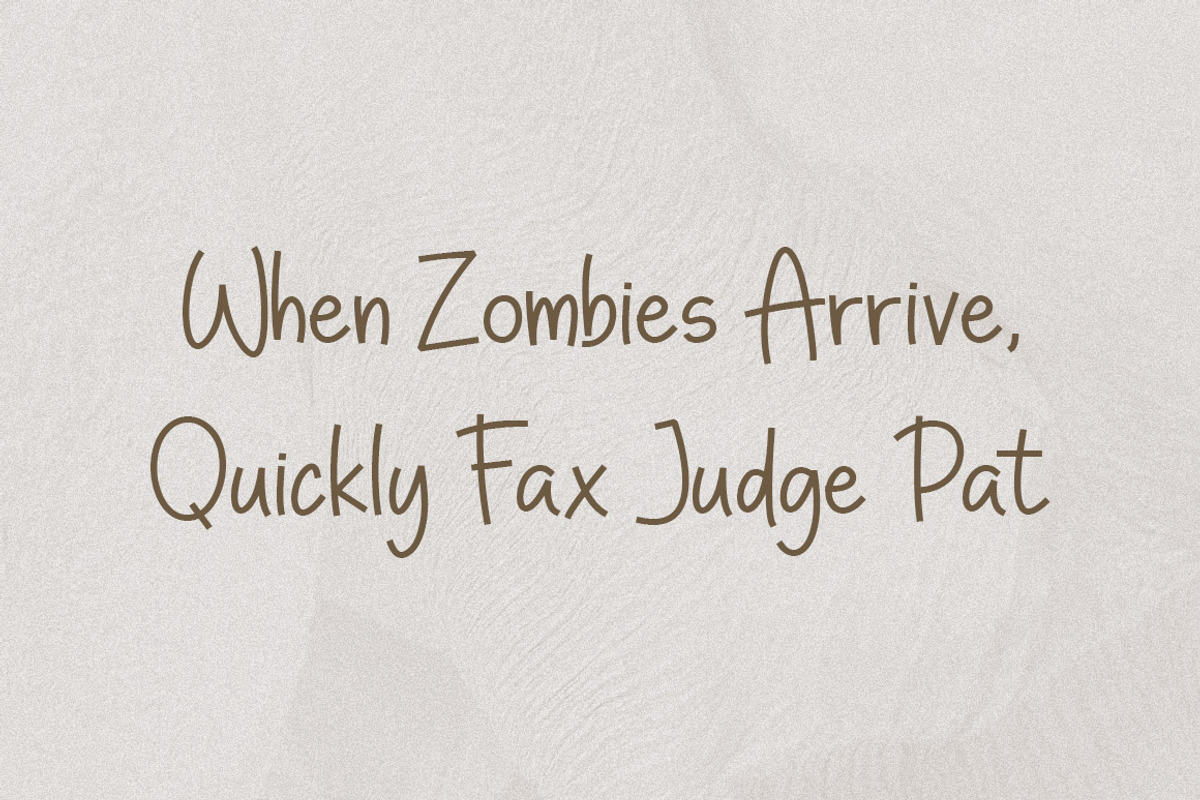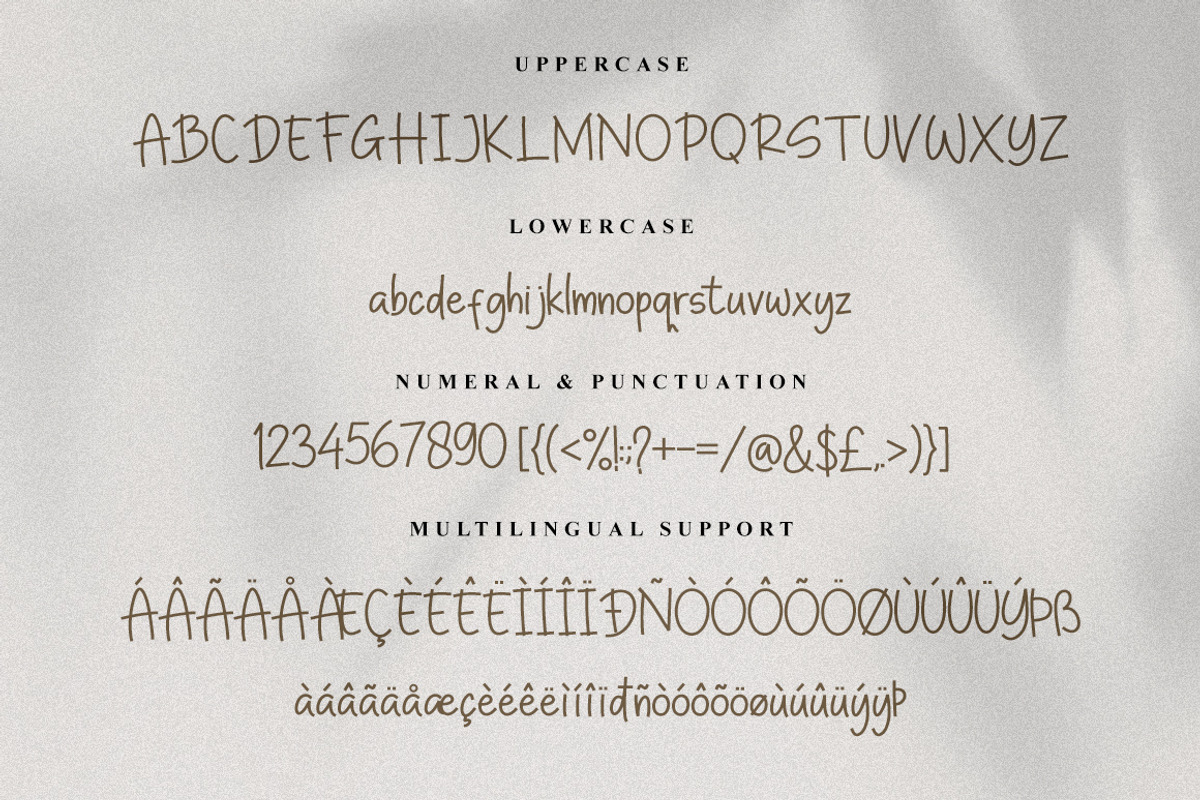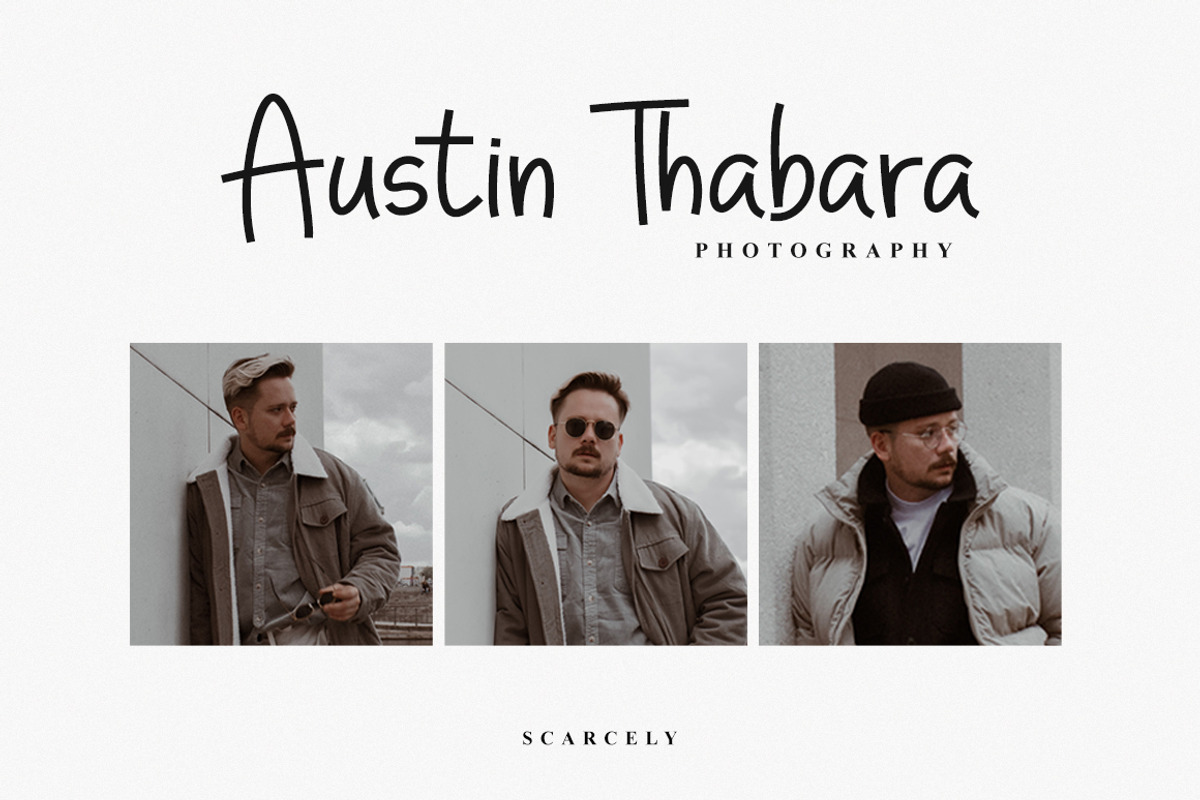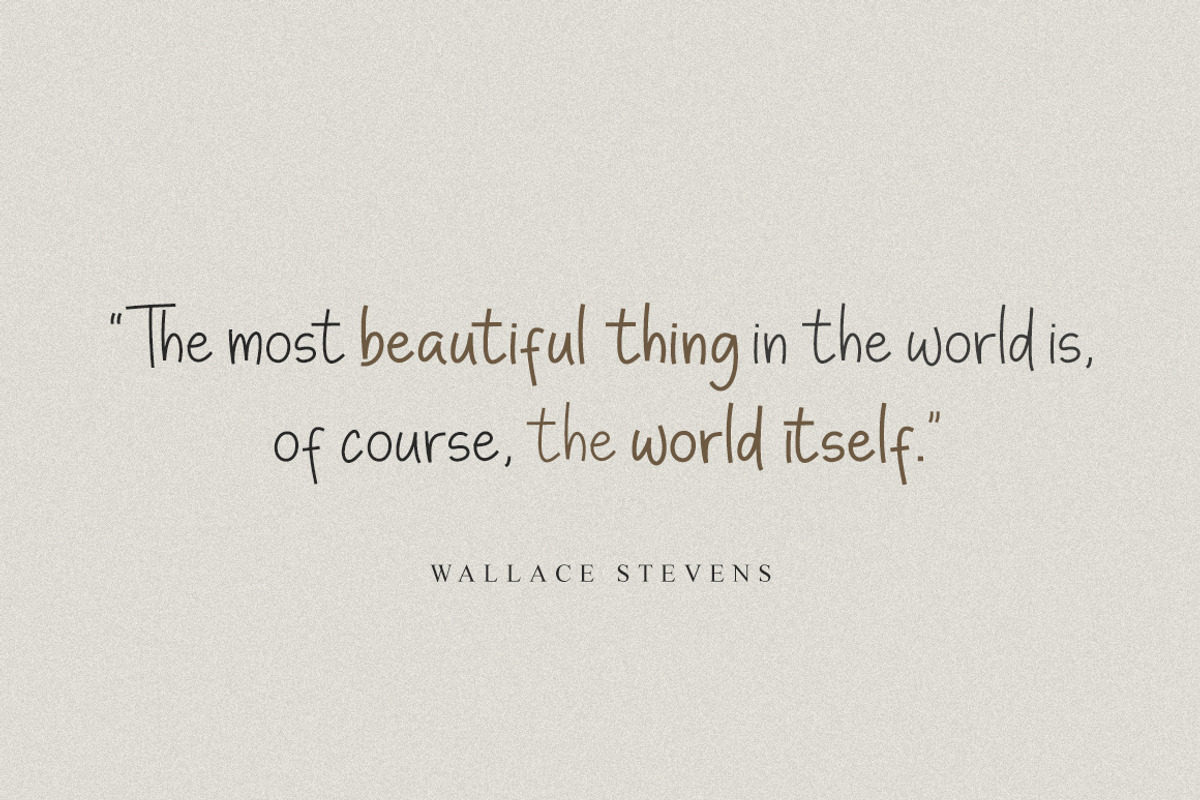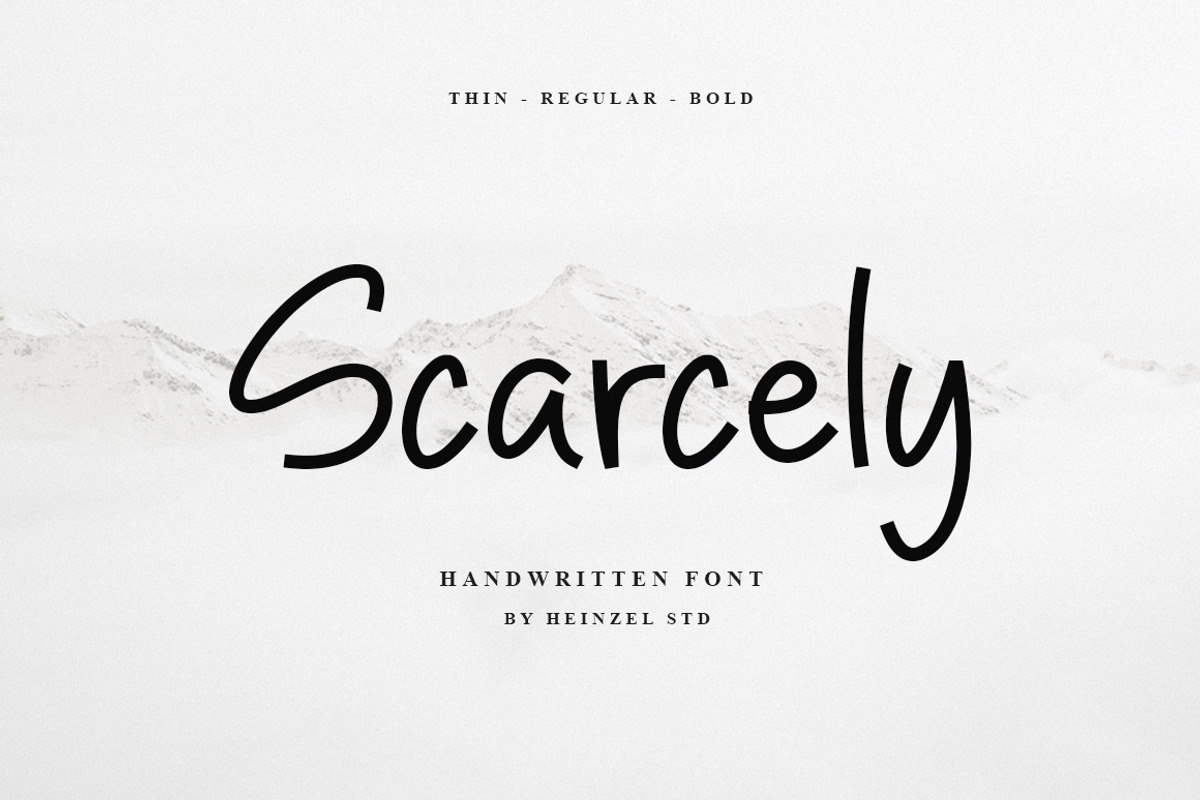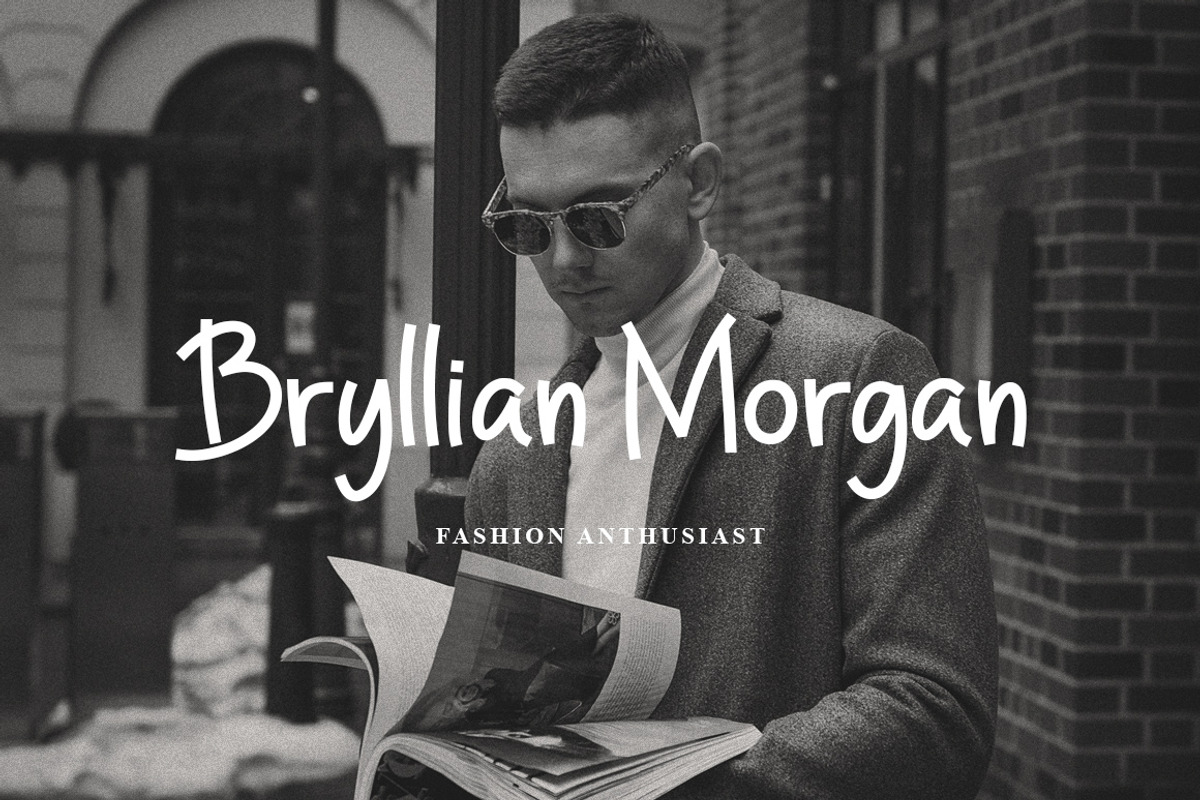
Scarcely Handwritten Font
Scarcely is a flowing handwritten font, described by an elegant touch, perfect for your favorite projects. It looks stunning on wedding invitations, thank you cards, quotes, greeting cards, logos, business cards, and every other design which needs a handwritten touch. Fall in love with its incredibly distinct and timeless style and use it to create spectacular designs! Scarcely is PUA encoded which means you can access all of the glyphs and ligatures with ease!
- 3 Version: Thin, Regular, and Bold
- Multilingual Support : ÁÂÃÄÅÆÇÈÉÊËÌÍÎÏÐÑÒÓÔÕÖØÙÚÛÜÝÞß àáâãäåæçèéêëìíîïðñòóôõöøùúûüýÿþ
This character set supports the following 21 languages: Afrikaans, Basque, Breton, Catalan, Danish, Dutch, English, Finnish, French, Gaelic (Irish, Scots), German, Icelandic, Indonesian, Irish, Italian, Norwegian, Portuguese, Saami (Southern), Spanish, Swahili, Swedish.